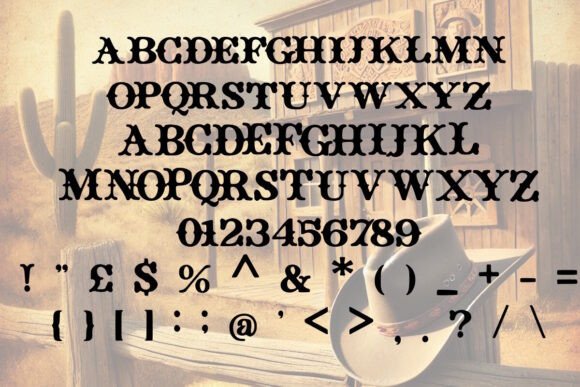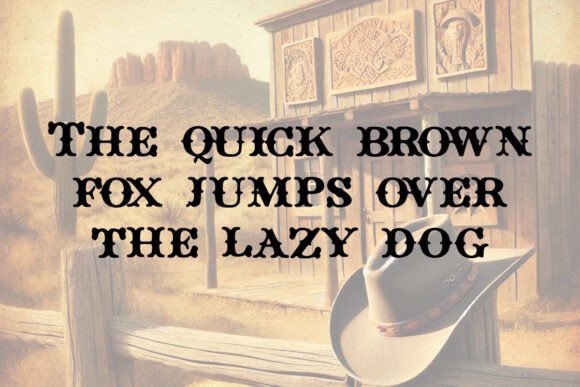
Introduction to Howdy Doodle Font
Remember that moment when you’re working on a creative project, and you’re searching for the perfect font to bring your vision to life? You’ve tried a dozen options, but nothing seems to capture the essence of your design. Well, saddle up, partner, because we’ve got just the thing for you – the Howdy Doodle Font!
| 👤 Author | Donna and D.A.V.E |
This rootin’ typeface is packed with personality, blending old-timey saloon vibes with a playful twist. With its bouncy serifs and hand-drawn quirks, the Howdy Doodle Font is a design resource that’s sure to add a touch of frontier fun to your branding. And the best part? It’s available for free download, making it a high-quality addition to any creative project.
Whether you’re a seasoned designer or just starting out, the Howdy Doodle Font is a valuable asset to have in your toolkit. Its transparent background and versatile style make it perfect for a wide range of designs, from rodeo posters to branding materials. So why wait? Get ready to lasso up the perfect font for your next creative adventure with the Howdy Doodle Font!
Key Features of Howdy Doodle Font
- High-quality vector font with a transparent background, ideal for creative projects requiring a unique design resource.
- Features a playful, hand-drawn design with a western-inspired theme, perfect for adding a touch of whimsy to your project.
Honest Review: Howdy Doodle Font
As a designer, I’m always on the lookout for high-quality fonts to elevate my creative projects. The Howdy Doodle Font is one such gem that I recently stumbled upon. The font is available for a free download, making it an attractive option for designers of all levels.
One of the standout features of the Howdy Doodle Font is its versatility. It’s perfect for use in a variety of design contexts, from digital products to print materials. The font’s transparent background also makes it easy to overlay on top of other design elements.
- ✨ High-quality design with a unique, playful feel.
- ✨ Versatile and suitable for a range of design contexts.
- ✨ Transparent background makes it easy to overlay on other design elements.
- ⚠️ Limited character set, which may not be suitable for extended text.
- ⚠️ May not be ideal for use in very small font sizes due to its playful, rounded design.
Overall, I’m impressed with the Howdy Doodle Font. It’s a great addition to any designer’s toolkit, and its free availability makes it a fantastic design resource. However, be aware of its limitations and use it accordingly.
Getting the Most Out of the Howdy Doodle Font
To maximize the effectiveness of the Howdy Doodle Font, use it in creative projects that require a fun and playful touch. This font is particularly well-suited for:
- Children’s book illustrations
- Wedding invitations and party decorations
- Branding and advertising campaigns
Does the Howdy Doodle Font include a transparent background?
Yes, the Howdy Doodle Font includes a transparent background option, making it easy to use as a design resource in a variety of applications, from graphic design to digital art.